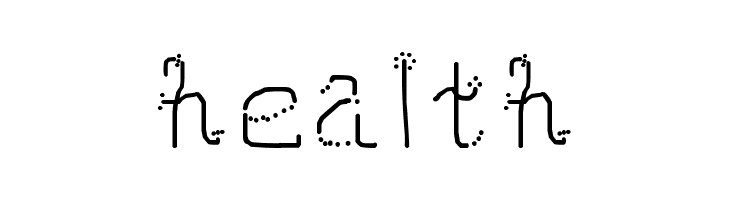
A collection of bold, geometric decorative elements for ornamental use.
Ornamental motif dingbat font with floral and decorative elements.
Ornamental divider and frame glyph set with decorative and geometric styles.
Highly decorative corner motif set with varied ornate and geometric styles.
Ornamental dingbat font with flourishes and decorative motifs.
A playful, futuristic font with bold, rounded shapes and whimsical accents.
A whimsical and decorative font with celestial embellishments and swirling accents.
Ornamental and decorative glyph set with intricate flourishes and motifs.
A playful, graffiti-inspired font with bold strokes and whimsical accents.
Geometric, decorative typeface with dot accents and a sci-fi feel.
Highly ornamental and decorative glyph set with flourishes and motifs.
A playful, decorative font with whimsical accents and bold characters.
A whimsical, playful font with cloud-like textures and bow accents.
A bold, decorative font with spiky, textured accents for a playful and edgy look.
A bold, decorative font with textured lines and star accents.
A playful, hand-drawn decorative font with dotted accents and whimsical style.
A geometric, modern font with a unicase style and dotted accents.
A diverse collection of ornamental and decorative dingbats.
A playful, cheetah-inspired font with dotted accents and a whimsical style.
Intricate and decorative design with elaborate swirls and flourishes.
A bold, decorative font with dot accents above each character.